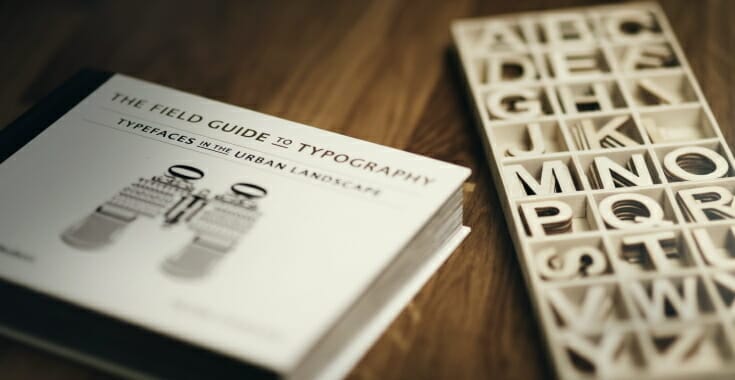
According to an interview with the Wall Street Journal, when writing, Anne Rice, the author of Interview With the Vampire, sets her font to 14 point Courier and double spaces the text on her 30-inch Mac computer monitor.
This piqued my curiosity: “so other people do this too?” As I write these words, my current font choice to pour my thoughts onto the computer screen is 19-point Arabic Typesetting. Why this strange choice? Why not a simple sans-serif option like Arial or Calibri? It’s because fonts have a psychological impact on the human mind.
When I use my favorite serif font, I feel like I’m crafting a story from One Thousand and One Nights, which is a good feeling.
Here’s what you need to know about the psychological impact of font choice:
Why Does Typography Matter?
How does it make you feel when you pick up an old, hardcover tome, flip through its pages, and notice that there’s an ornamented drop cap (initial) at the beginning of each chapter? Perhaps it grabs your attention and fills you with admiration for the author and the publisher who took the time to turn a word into a piece of art.
The style of the font, its size, thickness, and even the spacing between words can all subtly influence our perception on an unconscious level.
In one research study, they served identical jelly beans to two groups of people, labeled “eat me,” but used a different font for each group. The first one was a smoothly flowing round typeface, while the other was a jagged monster of a font. The result? People from the first group claimed that jellies were palatable, while the other group described them as sour. This goes to show that there’s a subtle subliminal influence at work here.
Notice Fonts as You Go About Your Business
In one of the chapters of On Looking, a fascinating book by Alexandra Horowitz, the author walks around New York City with a typographer Paul Shaw, who helps her notice the abundance of letters about town.
Doors, shop signs, t-shirts, advertisements—they all carry messages conveyed not only by words but by the hidden story of fonts. The Art Deco and Art Moderne letters on buildings are as intertwined with the city’s history as the architecture itself, and if you look closely, you’ll realize that certain fonts are like fads that go out of vogue.
The Psychological Influence of Font Choice
Every time you visit a website or open a book, you’re facing a conscious choice on the part of the author, publisher, or designer. What did they try to express with typesetting? Calibri, for instance, is a safe choice, as it’s inconspicuous and legible. This works well when you try to share information as fast as possible. Then you have something like Times New Roman that has this old-school, newspaper-ish feel to it.
And how about the iconic Blade Runner font? It instantly puts you in a cyber noir mood. For my website, I chose the Source Sans Pro font designed in 2012 by Paul Hunt for Adobe Systems. It’s a humanist sans-serif font, meaning it’s inspired by traditional letterforms, which I thought would be the right pick for users who want to read fast but are nevertheless inspired by language and arts.
Next time you ship out a piece of writing, think about what subtle emotion or perception you’re trying to convey with the lettering for maximum impact.
You might be surprised to learn that size matters in the world of fonts too. One study proved that larger font items were easier to recall for students. That’s why we often use bold fonts to put our message across, knowing full well that many readers skim the text in search of crucial information. In this way, bold text and subheadings serve as a shortcut reading map for a busy reader.
On the other hand, fonts that are harder to read promote more recollection on the part of the readers because they require more focus time to engage with, and decipher.
Whichever font you pick, heed the words of the illustrator William Addison Dwiggins:
“If you don’t get your type warm it will be no use at all for setting down warm human ideas.”